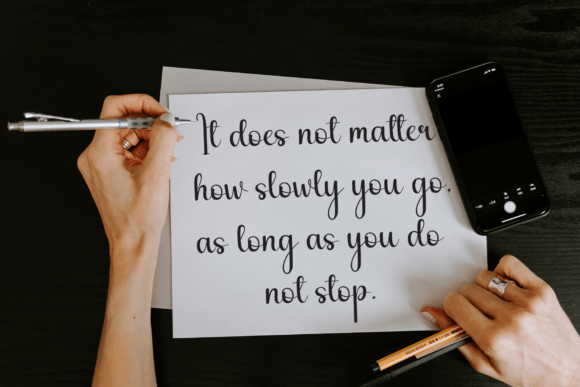
Winter Stella Font: A Sweet and Friendly Handwritten Display Font
Are you looking for a font that can add a touch of warmth and personality to your designs? Look no further than Winter Stella Font, a sweet and friendly handwritten display font that is perfect for a variety of creative projects. In this article, we’ll take a closer look at Winter Stella, its features, and how you can use it to elevate your designs.
What is Winter Stella Font?
Winter Stella Font is a handwritten display font that is designed to be cute and fun. It has a playful, informal feel that makes it perfect for adding a personal touch to your designs. The font is characterized by its rounded edges, flowing lines, and whimsical feel, which gives it a unique and charming personality.
Features of Winter Stella Font
Winter Stella Font has several features that make it an ideal choice for designers. Some of its key features include:
- Cute and Fun Design: Winter Stella Font has a playful and whimsical design that is sure to add a touch of fun to your designs.
- Handwritten Style: The font has a handwritten style that gives it a personal and informal feel.
- Rounded Edges: The font’s rounded edges give it a soft and friendly feel.
- Flowing Lines: The font’s flowing lines add to its playful and whimsical feel.
- Multilingual Support: Winter Stella Font supports multiple languages, making it a great choice for designers who work with international clients.
Use Cases for Winter Stella Font
Winter Stella Font is a versatile font that can be used in a variety of creative projects. Some of the most popular use cases for the font include:
- Wedding Invitations: Winter Stella Font is perfect for writing wedding invitations, save-the-date cards, and other wedding-related materials.
- Greeting Cards: The font’s playful and whimsical feel makes it a great choice for designing greeting cards for special occasions.
- Social Media Graphics: Winter Stella Font can be used to create social media graphics, such as Facebook posts, Instagram stories, and Twitter headers.
- Branding and Packaging: The font can be used in branding and packaging designs to add a touch of personality and whimsy.
- Signage and Displays: Winter Stella Font can be used in signage and display designs to add a playful and eye-catching element.
Benefits of Using Winter Stella Font
There are several benefits to using Winter Stella Font in your designs. Some of the most significant benefits include:
- Unique and Memorable: Winter Stella Font is a unique and memorable font that can help your designs stand out.
- Emotional Connection: The font’s playful and whimsical feel can help create an emotional connection with your audience.
- Versatile: Winter Stella Font is a versatile font that can be used in a variety of creative projects.
- Easy to Read: The font is easy to read, even at small sizes, making it perfect for body text and captions.
How to Use Winter Stella Font
Using Winter Stella Font in your designs is easy. Here are a few tips to get you started:
- Choose the Right Size: Winter Stella Font can be used at a variety of sizes, but it’s best to use it at larger sizes to take advantage of its playful and whimsical feel.
- Pair with Other Fonts: Winter Stella Font can be paired with other fonts to create a unique and interesting contrast.
- Experiment with Colors: The font looks great in a variety of colors, so don’t be afraid to experiment and find the perfect color for your design.
Tips and Tricks for Getting the Most out of Winter Stella Font
Here are a few tips and tricks for getting the most out of Winter Stella Font:
- Use it Sparingly: Winter Stella Font is a bold and playful font, so it’s best to use it sparingly to avoid overwhelming your design.
- Add Texture and Patterns: Adding texture and patterns to your design can help give it a more organic and playful feel.
- Play with Ligatures: Winter Stella Font has a range of ligatures that can help add a touch of whimsy to your design.
Winter Stella Font is a sweet and friendly handwritten display font that is perfect for adding a touch of warmth and personality to your designs. Its playful and whimsical feel makes it a great choice for a variety of creative projects, from wedding invitations to social media graphics. With its unique and memorable design, Winter Stella Font is sure to help your designs stand out.
FAQs about Winter Stella Font
- What is Winter Stella Font?: Winter Stella Font is a handwritten display font that is designed to be cute and fun.
- What is Winter Stella Font used for?: Winter Stella Font can be used in a variety of creative projects, including wedding invitations, greeting cards, social media graphics, and more.
- Is Winter Stella Font easy to read?: Yes, Winter Stella Font is easy to read, even at small sizes.